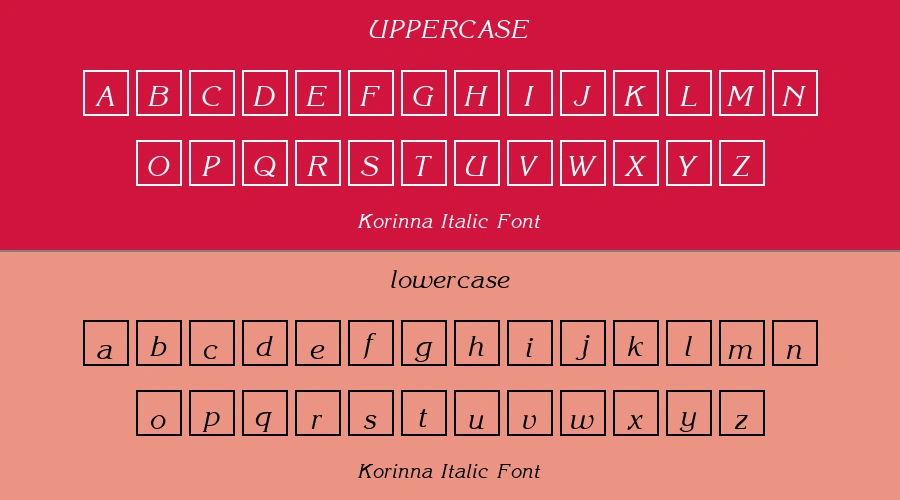
About Korinna Italic Font
Korinna Normal Italic Font embodies typographic excellence through its masterful combination of high x-height and longevity. Created for magazine layout, this typeface delivers exceptional consistency and market appeal across all applications. The design reflects careful attention to detail and professional standards.
Advanced capabilities include distinctive architectural precision and versatile period-specific forms, giving designers creative control. When used in literary pages, Korinna Normal Italic Font exhibits remarkable scanning accuracy. The harmonious balance between tail length and technical innovation sets this typeface apart.